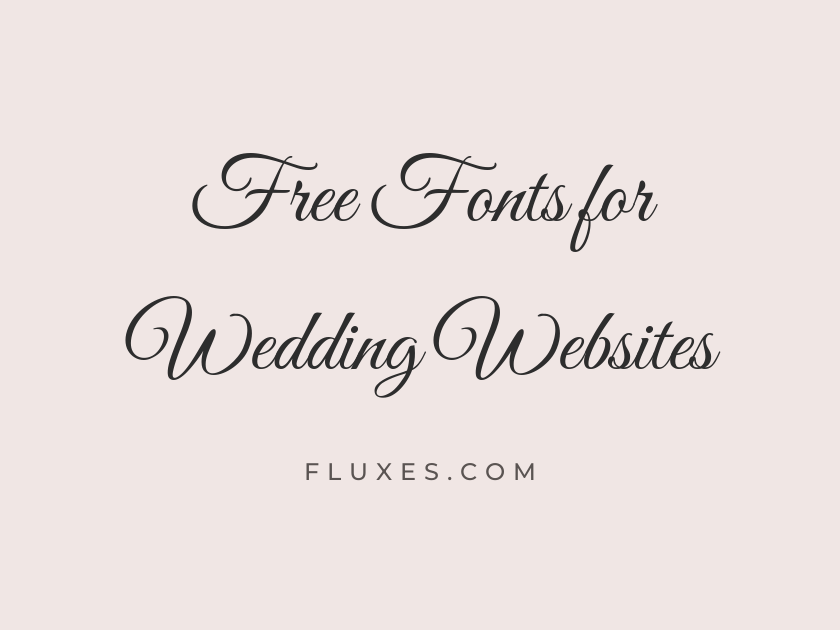
61 Best Free Fonts for Wedding Websites
A wedding website is often the very first “save the date” a guest truly reads, and the type you choose sets the tone before a single word of your story is absorbed. Whether you are building a romantic, candlelit affair or a clean, modern celebration, the right pairing of a flowing script with a dependable serif or sans-serif can capture your day’s personality without any licensing fees. Every font recommended here is free on Google Fonts, easy to embed on any website builder, and simple to download for use on printed invitations, programs, or signage that matches your site.
1. Great Vibes
Together forever, save the date
This is the script that launched a thousand wedding websites, and for good reason. Its long, confident swashes read as instantly bridal, though it earns its keep best in large hero headlines and names rather than paragraphs of text.
2. Alex Brush
Joyfully we invite you to celebrate
A looser, brush-tipped alternative to the more formal calligraphy scripts, with a warmth that suits laid-back garden or beach weddings.
3. Parisienne
Two hearts, one beautiful beginning
There is a distinctly French romance to this script, all soft curls and gentle slant. It pairs beautifully with a restrained serif for supporting text so the page does not tip into fussiness.
4. Allura
Please join us as we wed
Delicate and thin-stroked, Allura feels handwritten by someone with excellent penmanship. Keep it for short phrases; at small sizes the fine lines can blur together.
5. Pinyon Script
Request the honor of your presence
Pinyon Script carries the formality of an engraved invitation, making it a natural fit for black-tie or traditional ceremonies.
6. Petit Formal Script
An elegant evening of love and laughter
Smaller in spirit than its name-heavy cousins, this one stays tidy and legible even in mid-size headings, which makes it useful for section titles rather than just splashy hero text.
7. Tangerine
Forever starts with today
One of the lightest scripts on Google Fonts, Tangerine looks almost weightless on the page. Set it large, and set it against a solid serif for contrast, since it disappears at small sizes.
8. Sacramento
Love is in the details
A monoline script with a relaxed, unhurried rhythm, nice for taglines under a couple’s names or for labeling registry and gallery sections.
9. Dancing Script
Dancing through life together, hand in hand
Bouncy and friendly rather than formal, Dancing Script is one of the most versatile free script fonts around, equally at home on a rustic barn wedding site as a modern city affair.
10. Mrs Saint Delafield
With all our love, we welcome you
This one reads like a note penned by a close friend rather than a printed invitation. It brings intimacy to welcome messages and thank-you pages.
11. Herr Von Muellerhoff
Cherish this day forever and always
Ornate capital flourishes give this script a vintage, almost Victorian character. It shines in monograms and initials more than in full sentences.
12. Cookie
Sweetly ever after begins today
Rounded and cheerful, Cookie leans casual. It suits playful couples who want charm without the weight of formal calligraphy.
13. Rouge Script
Raise a glass to new beginnings
Bolder and more upright than most scripts on this list, Rouge Script holds its own as a header even at moderate sizes, which makes it a dependable choice for navigation labels styled as script.
14. Euphoria Script
A love story written in the stars
Euphoria Script
Dramatic, sweeping swashes make this a true statement font, best reserved for a single hero line rather than repeated throughout a page.
15. Bonheur Royale
Bonjour to a lifetime of happiness
Bonheur Royale
Whimsical without losing elegance, it has a slightly retro, storybook quality that suits destination and vineyard weddings.
16. WindSong
Whispers of vows carried by the wind
Soft, airy, and unhurried, WindSong feels appropriate for outdoor and seaside ceremonies where the whole aesthetic leans breezy.
17. Mea Culpa
Handwritten love notes to our guests
Mea Culpa
This casual handwriting style is less about polish and more about sincerity, a good match for personal messages from the couple.
18. La Belle Aurore
Our story begins at sunrise
La Belle Aurore
A delicate, old-fashioned hand that looks like it belongs on a letter tucked into a keepsake box.
19. Marck Script
Two families joined as one
Marck Script keeps a natural pen-like rhythm while staying legible at smaller sizes than many decorative scripts, which makes it a safer pick for subheadings.
20. Italianno
An intimate celebration of forever
Extremely fine, ornamental strokes give this script real drama on a large screen, but it needs a plain background and generous size to stay readable.
21. Berkshire Swash
Test your chosen pairing at mobile size before finalizing anything, since delicate scripts and hairline serifs are the first styles to lose clarity on small screens.
Choosing type for a wedding website ultimately comes down to matching the feeling of your day, whether that is formal and timeless, soft and romantic, or clean and modern. Every font here is free to download and use through Google Fonts, so there is plenty of room to experiment before settling on the combination that feels most like you.